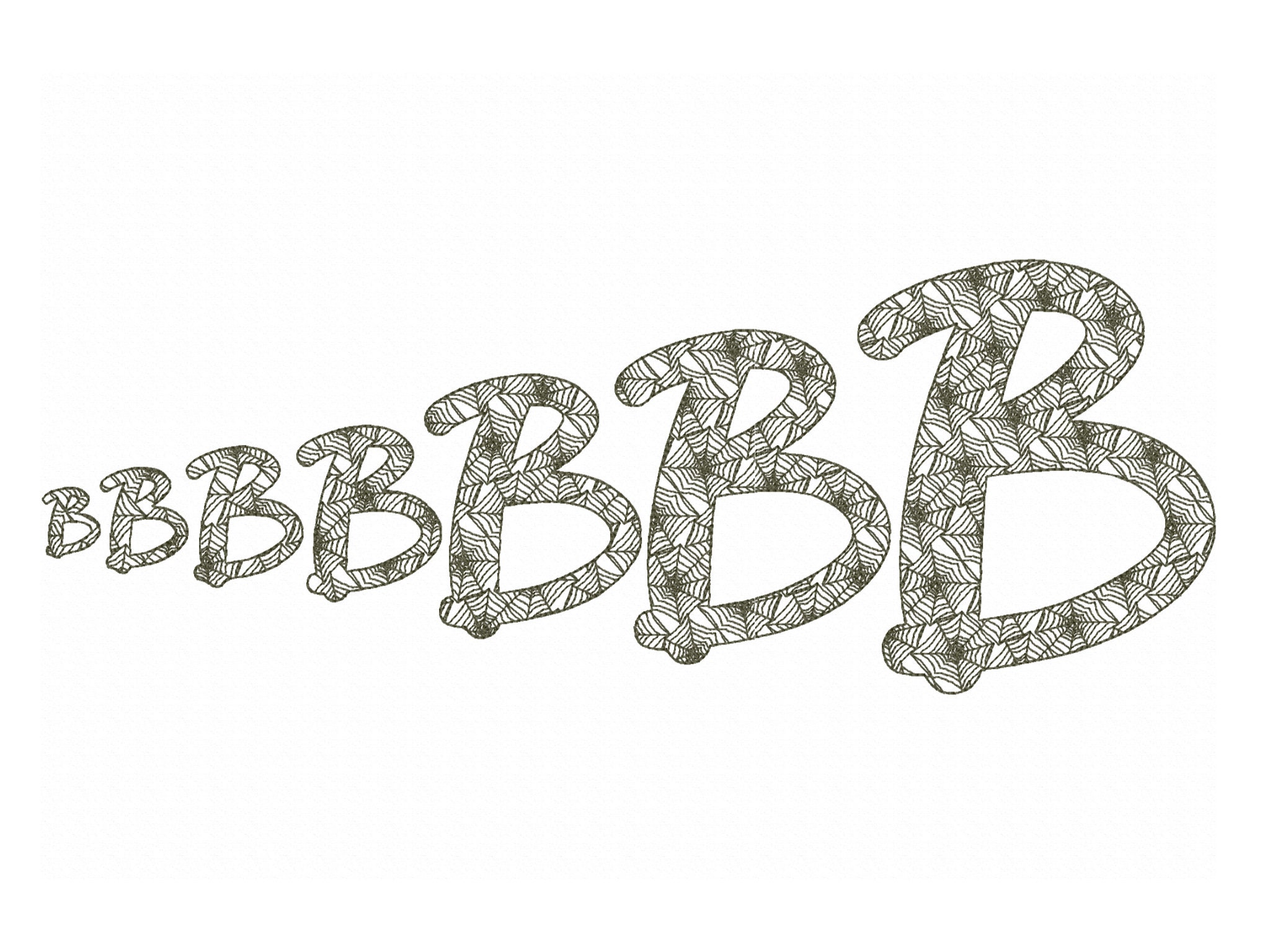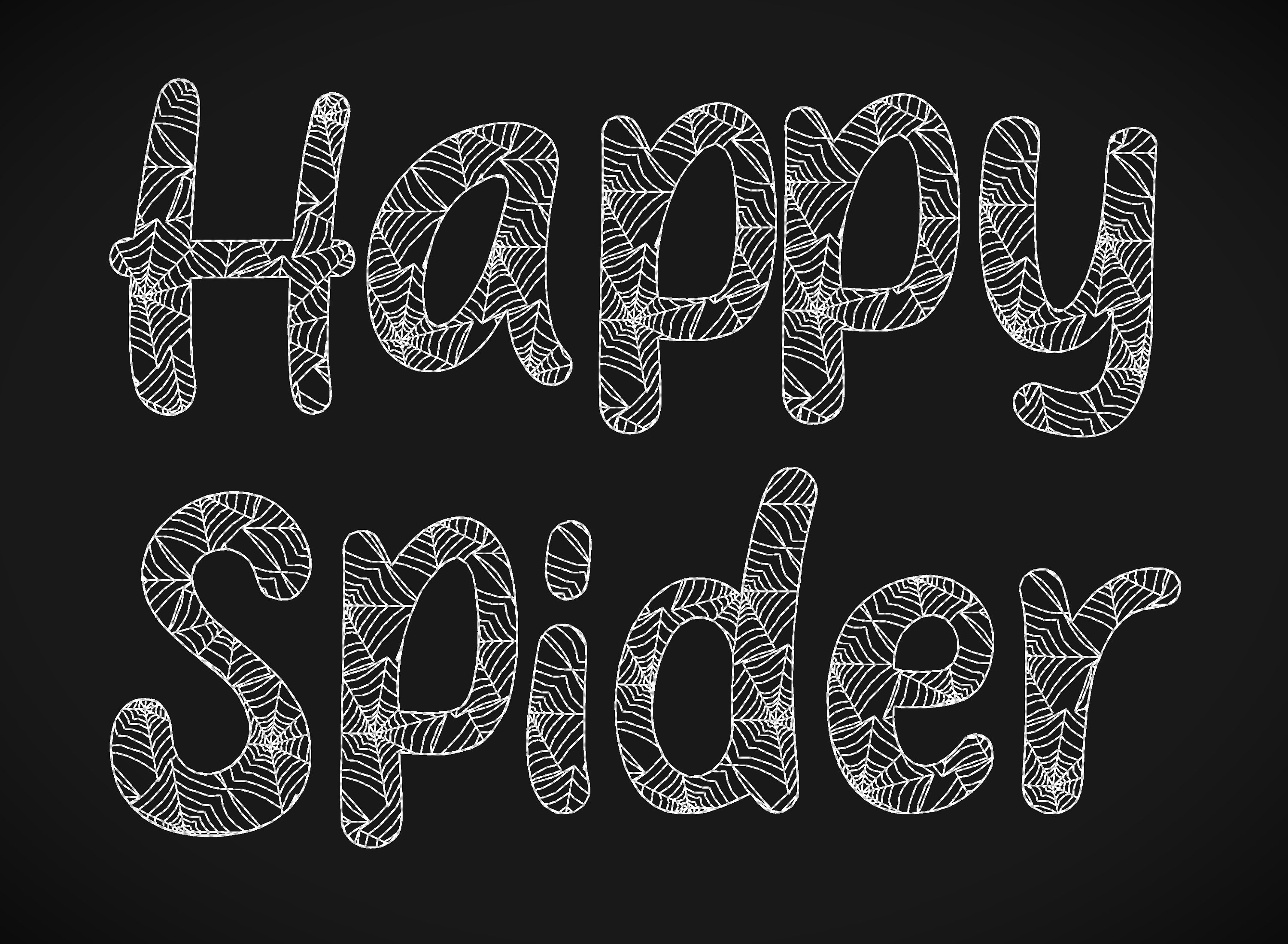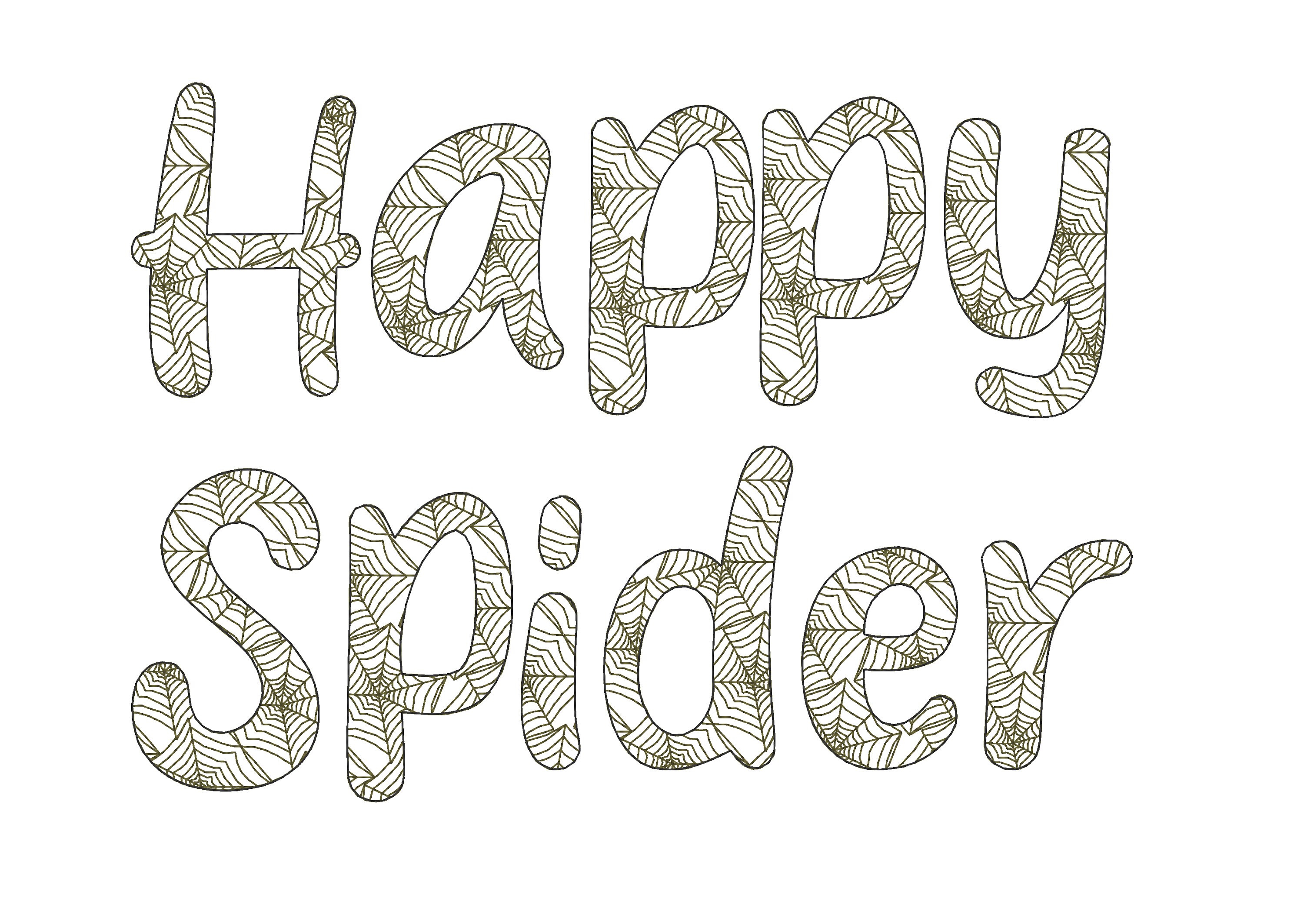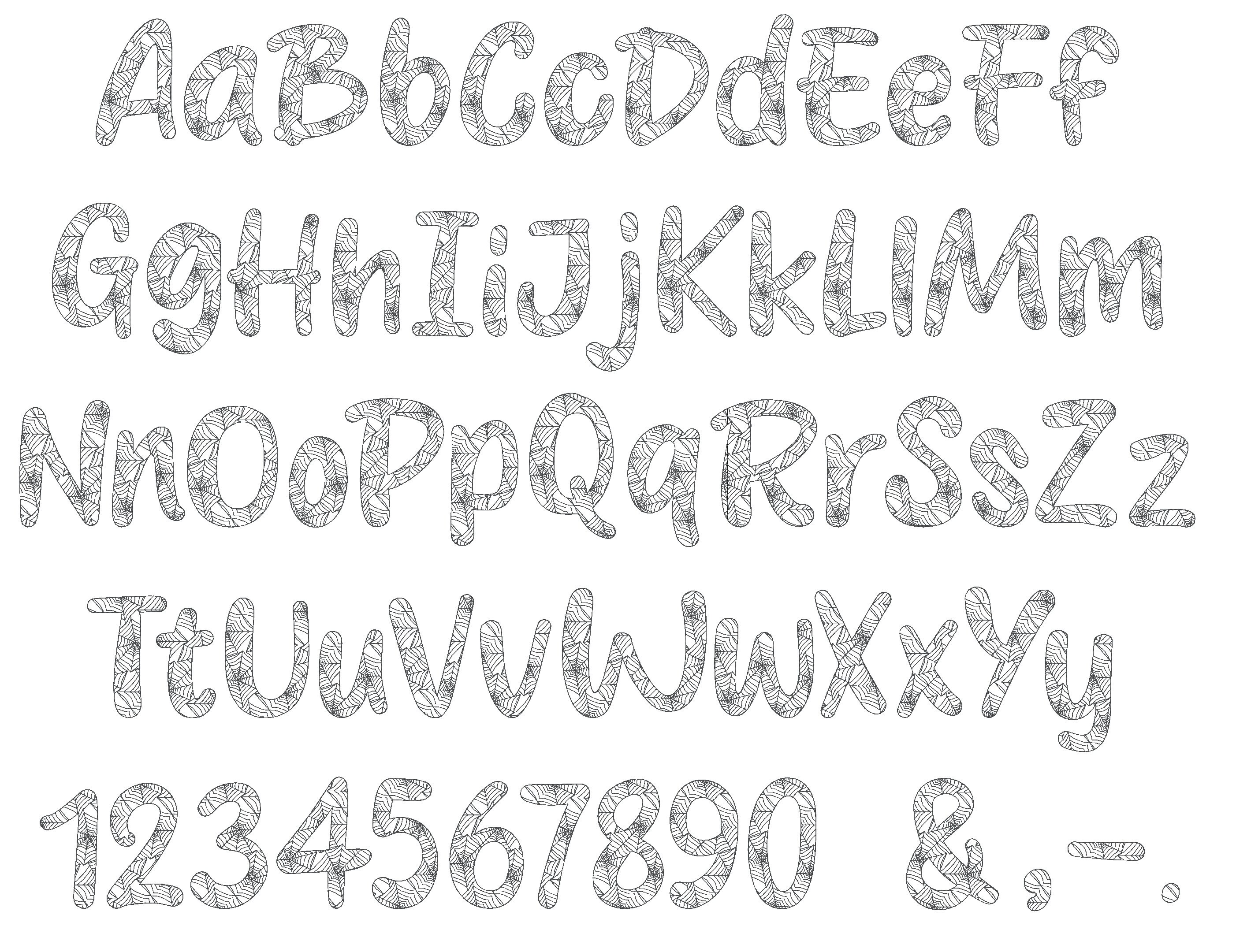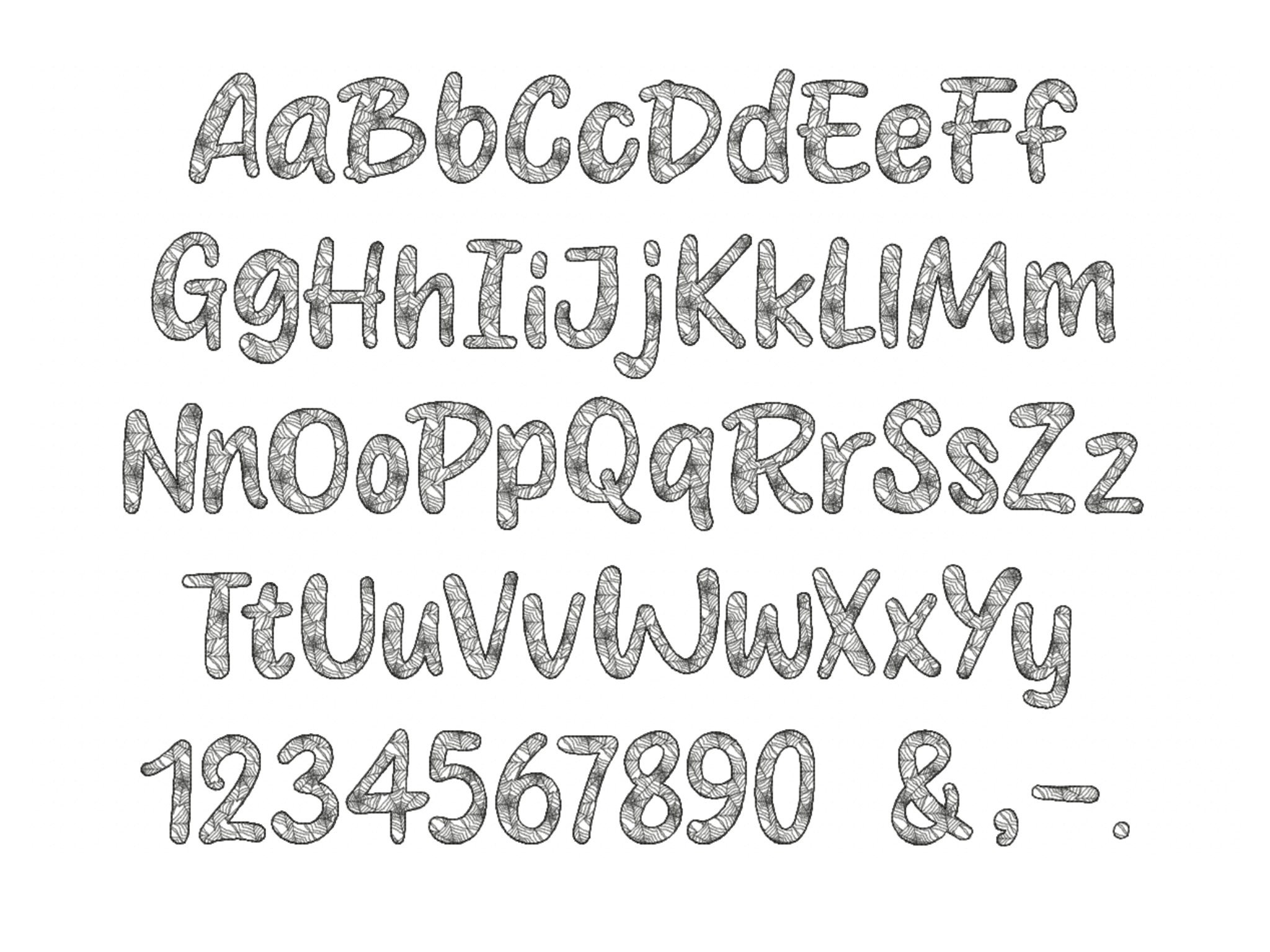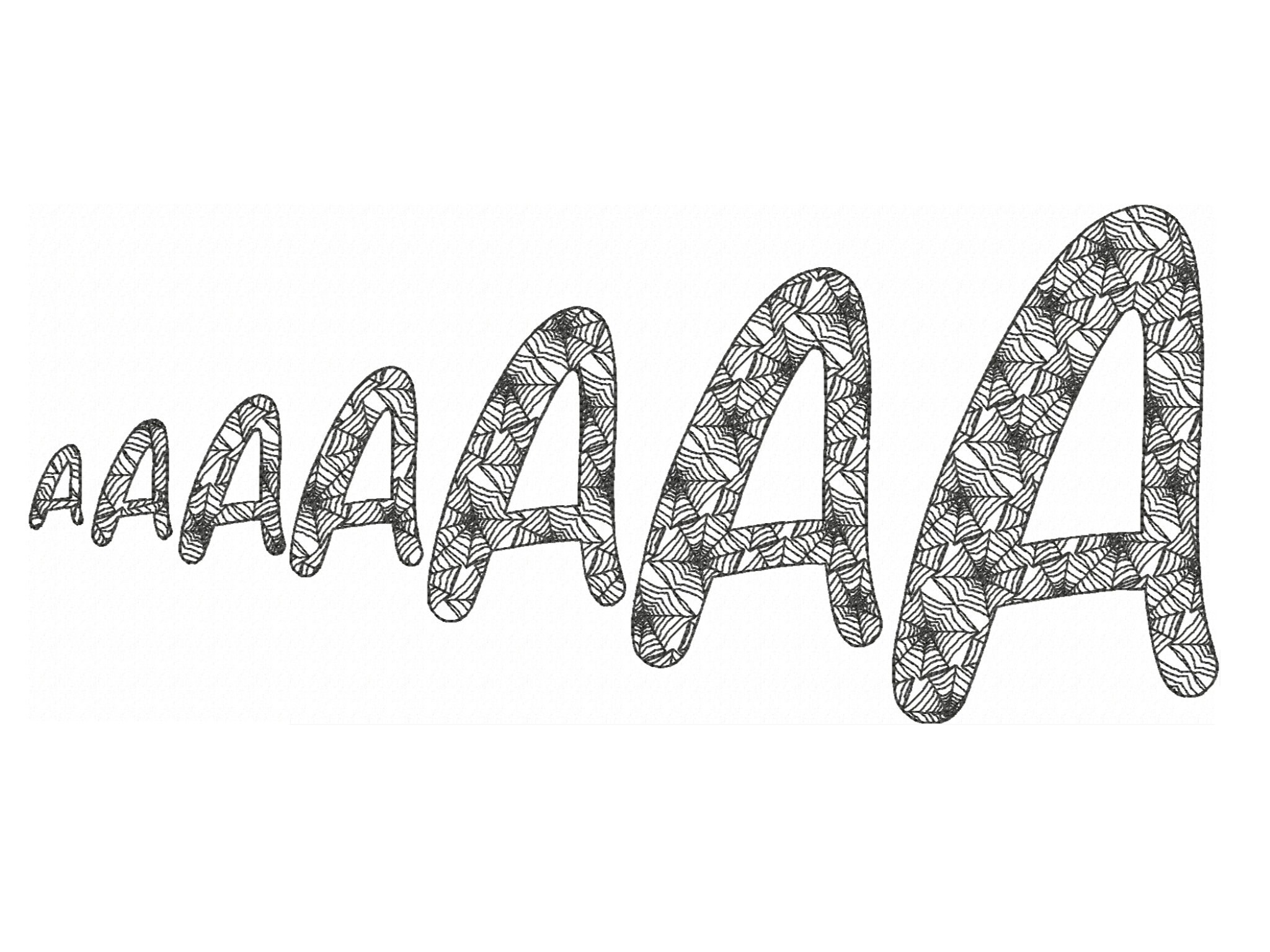
Spiders web Halloween Font light sketch outline machine embroidery design font alphabet letters 1.5, 2, 3 & 4in BX
These are quick-stitch designs that resemble lace, allowing the background fabric to show through for a stunning effect.